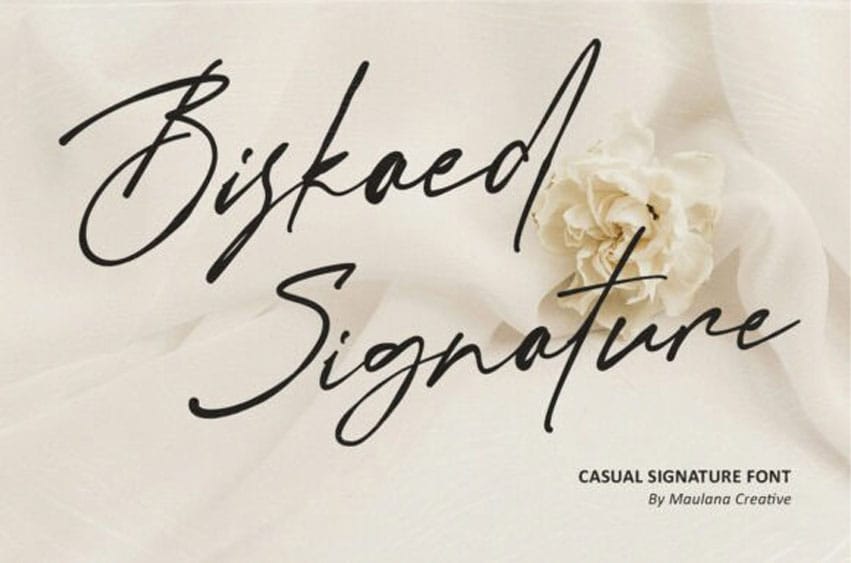
Biskaed Signature Font Capture the effortless cool of modern penmanship with the Biskaed Casual Signature font, a typeface designed to look like a quick yet perfectly formed handwritten note.
This typeface features a natural, fluid flow with varying stroke weights that mimic the pressure of a real ink pen, offering a sense of authentic human connection. The Biskaed Casual Signature typeface is the ultimate tool for “lifestyle” branding, serving as an ideal choice for influencer watermarks, casual boutique logos, and stylish social media graphics.
By using the Biskaed Casual Signature font, you give your brand a voice that feels approachable, trendy, and bespoke. For a balanced design, try pairing it with a sturdy, all-caps sans-serif to provide a solid foundation for the script’s organic movement. It works beautifully on photography overlays, business cards, and apparel tags where a “hand-signed” touch is needed to convey quality and craft.
The Biskaed Casual Signature font is versatile enough to work in both minimalist and maximalist layouts, providing a touch of effortless sophistication that makes every word feel personally curated and genuinely unique.
Biskaed is a premium casual signature font designed to bring a personal, handcrafted touch to your creative projects. With its flowing lines, natural pressure strokes, and modern aesthetic, this font perfectly mimics real handwriting. Whether you are building a high-end brand or designing heartfelt stationery, Biskaed offers the versatility and style you need.
Why Choose Biskaed?
– Natural Flow: Includes ligatures and alternates to maintain a seamless, organic look.
– Versatile Style: Perfectly suited for luxury branding, wedding invitations, fashion photography overlays, and social media quotes.
– Timeless Aesthetic: A balance of “casual” and “sophisticated” that never goes out of style.
Perfect for: Logo branding, business cards, watermark photography, wedding cards, lifestyle blogs, and stylish merchandise.